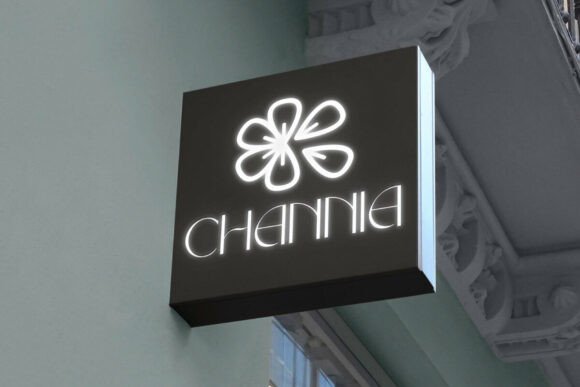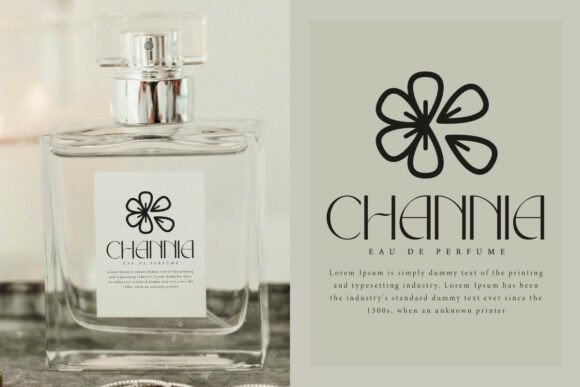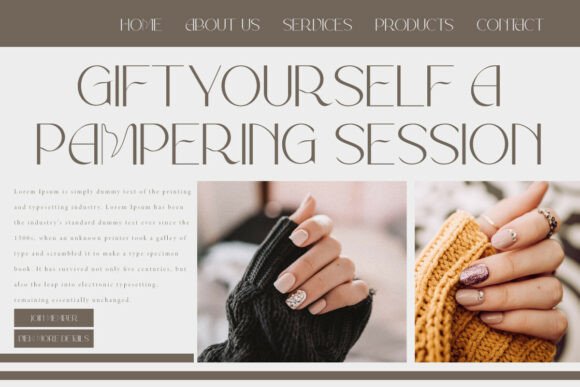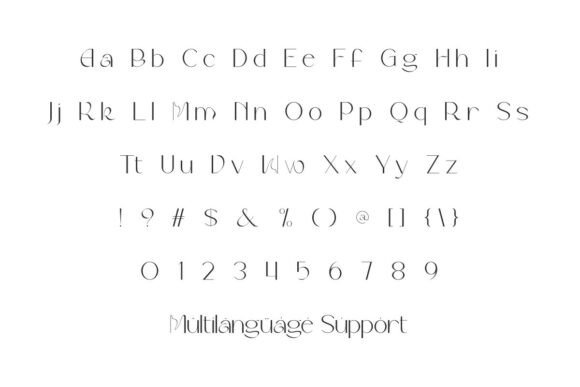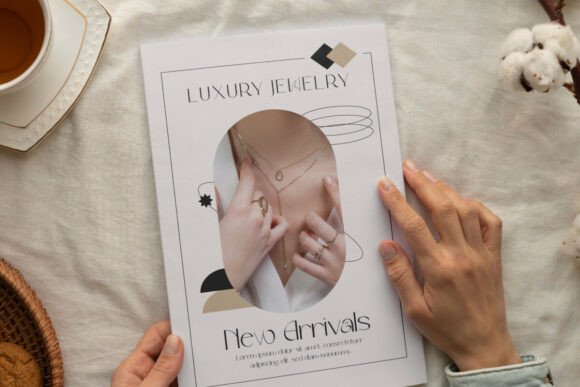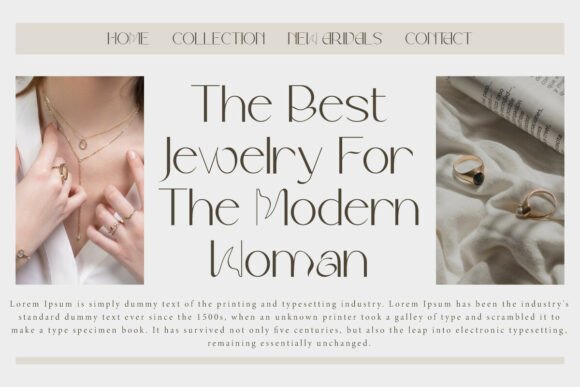
Introducing Allura Diamond Font: Elevate Your Designs with Elegance and Sophistication
In the world of design, fonts play a crucial role in conveying messages, evoking emotions, and creating a lasting impression. For designers who value both beauty and functionality, Allura Diamond Font is a game-changer. This modern font bundle is crafted to deliver clean lines, stylish contrast, and a unique personality that sets your designs apart.
Unleash Your Creativity with Allura Diamond Font
Allura Diamond Font is perfect for designers who want to add a touch of elegance and sophistication to their projects. With its elegant style that exudes a strong feminine aura, this font is ideal for creating stunning fashion labels, logos, social media graphics, and print materials. Whether you’re a seasoned designer or a crafty DIY enthusiast, Allura Diamond Font ensures your message looks polished and professional.
The versatility of Allura Diamond Font makes it suitable for a wide range of design projects. Here are some ideas to get you started:
- Advertising: Create eye-catching ads that grab attention with Allura Diamond Font’s clean lines and stylish contrast.
- Blog and Brand Image: Establish a strong brand identity with a font that exudes elegance and sophistication.
- Invitation Card: Design beautiful and unique invitation cards for special occasions that leave a lasting impression.
- Label and Layout Design: Add a touch of elegance to your product labels, packaging, and layout designs.
- Quotes and Signage: Create stunning quote posters and signage that inspire and motivate.
- Template Designing: Use Allura Diamond Font to create professional-looking templates for presentations, reports, and more.
- Websites: Enhance your website’s visual appeal with a font that is both beautiful and functional.
What Makes Allura Diamond Font Special?
Allura Diamond Font stands out from the rest due to its unique characteristics:
- Elegant Style: The font’s elegant style exudes a strong feminine aura, making it perfect for designs that require a touch of sophistication.
- Clean Lines: The clean lines and stylish contrast of Allura Diamond Font ensure that your designs look polished and professional.
- Unique Personality: This font has a unique personality that sets your designs apart from the rest.
Why Choose Allura Diamond Font?
By choosing Allura Diamond Font, you can:
- Elevate Your Designs: Add a touch of elegance and sophistication to your designs.
- Save Time: With a versatile font that can be used for multiple projects, you can save time and increase productivity.
- Stand Out: Create designs that stand out from the rest with a unique font that grabs attention.
Allura Diamond Font is a modern font bundle that is perfect for designers who value both beauty and functionality. With its elegant style, clean lines, and unique personality, this font is ideal for creating stunning designs that leave a lasting impression. Whether you’re a seasoned designer or a crafty DIY enthusiast, Allura Diamond Font is a must-have in your design toolkit.